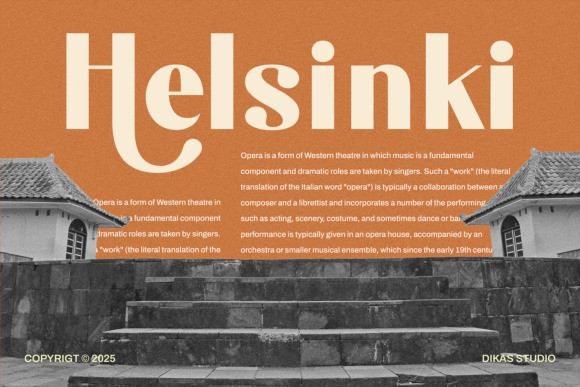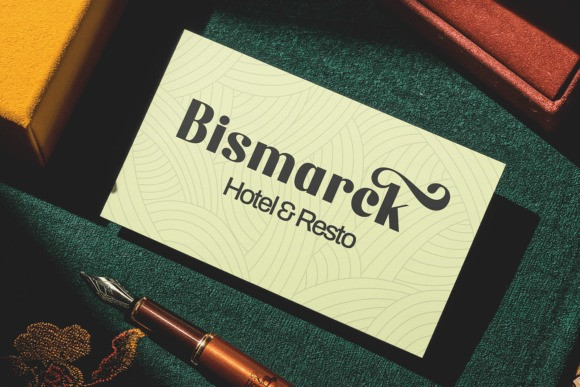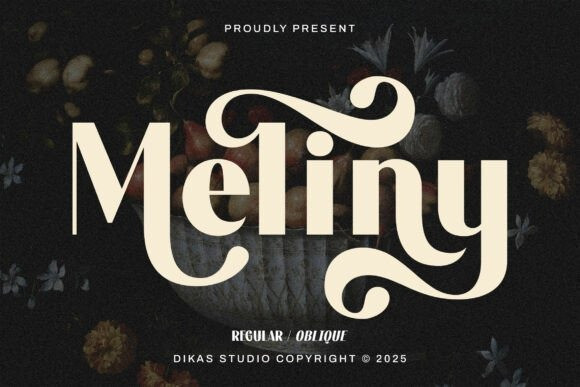
Meliny Font
Meliny Font is a bold, curvaceous, and sensual display font that features high-impact swashes and fluid typography, ideal for captivating luxurious branding.This stunning typeface demands attention with its dramatic curves and thick-to-thin stroke contrast, offering both a regular and an oblique style for maximum design versatility. The oversized, looping glyphs and elegant swashes give this font a unique, unmistakable personality, making it perfect for high-end packaging, glamorous magazine headlines, bold fashion logos, and retro-chic album covers.
The Meliny font is a powerful typography tool that combines the drama of vintage lettering with refined modern construction, ensuring every title is a statement piece.